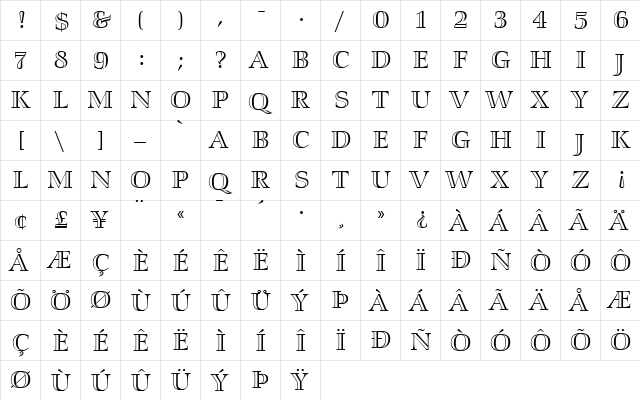
SmaragdAlternate Roman
Design Context for SmaragdAlternate Typeface
SmaragdAlternate offers clean, dependable letterforms without strong stylistic allegiance, making it a practical choice for designers who need flexibility.